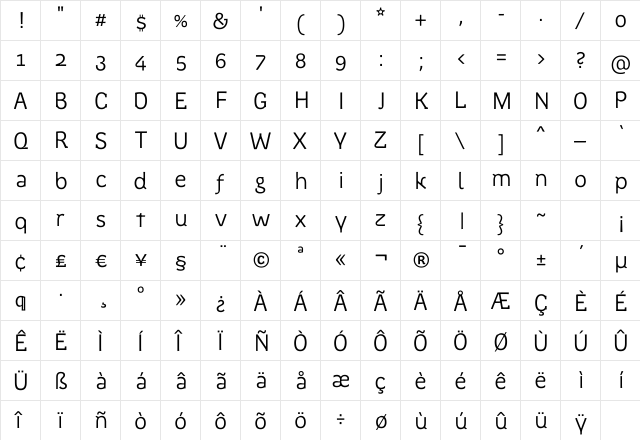
SpotkaRegular Font Preview
SpotkaRegular Regular
SpotkaRegular Font Details
Design Context for SpotkaRegular Typeface
SpotkaRegular offers clean, dependable letterforms without strong stylistic allegiance, making it a practical choice for designers who need flexibility.